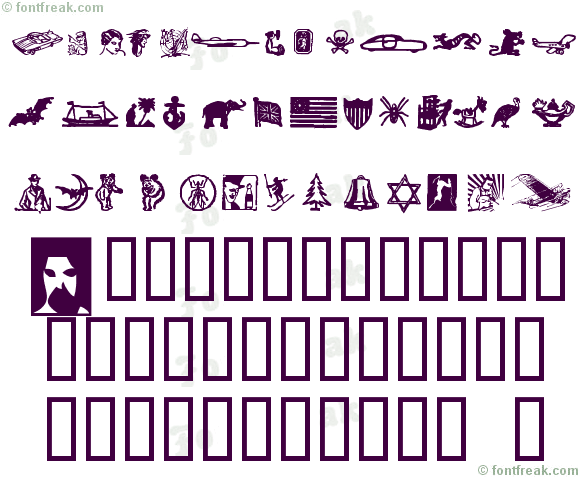
dingies Heavy
About Dingies
Dingies by Studio Sans1 is a captivating dingbat font that adds a whimsical touch to any design project. This freeware font is characterized by its playful and heavy visual style, making it ideal for creative applications where a unique flair is desired. The strokes of Dingies are bold and consistent, providing a strong presence that stands out while maintaining legibility. The spacing is well-balanced, allowing each character to breathe, ensuring that your designs remain clean and organized. With a variety of decorative elements, including fun icons and symbols, Dingies offers a treasure trove of graphical options for imaginative projects.
This font shines in various use cases, such as wedding invitations where its charming aesthetic can add a touch of personality, or in children's book illustrations that benefit from its playful nature. Additionally, Dingies is perfect for restaurant menus, where fun icons can visually represent food items, enhancing the dining experience. It can also be effectively used in social media graphics, allowing content creators to engage their audience with eye-catching visuals. Graphic designers and small business owners will find Dingies to be a versatile addition to their font library, capable of elevating their branding and promotional materials.
What sets Dingies apart is its ability to blend fun and functionality. The distinctiveness of each character provides an opportunity for creative expression, while its freeware status makes it accessible for those looking to enhance their projects without breaking the bank. Whether you’re crafting a quirky advertisement or designing a playful website, Dingies font free download allows you to infuse your work with character and charm. Embrace the creativity that Dingies offers and watch your designs come to life.